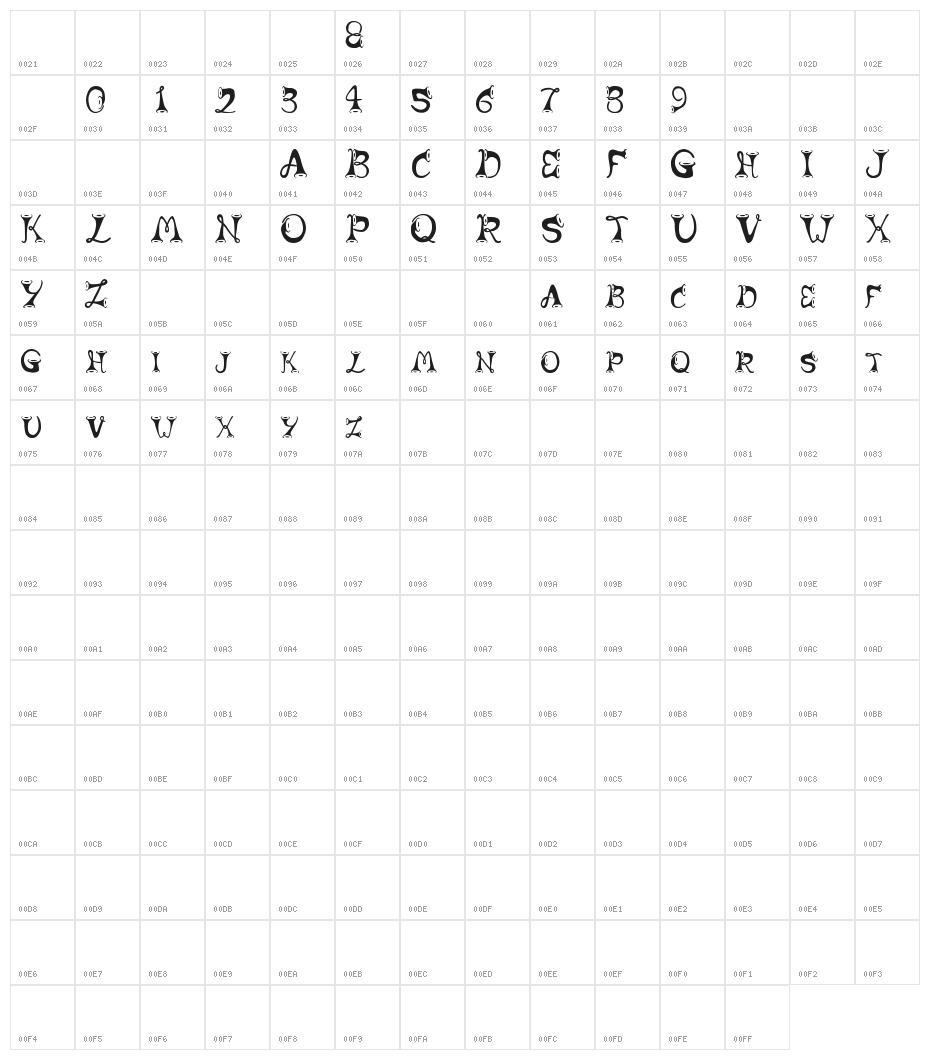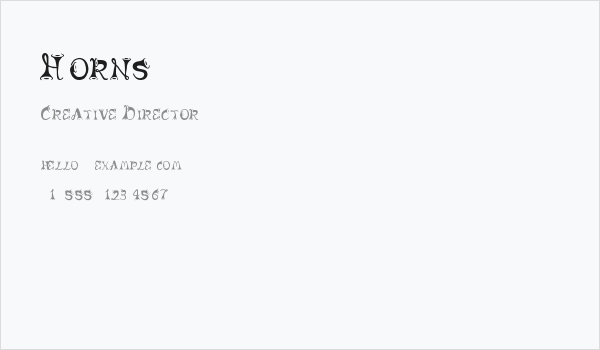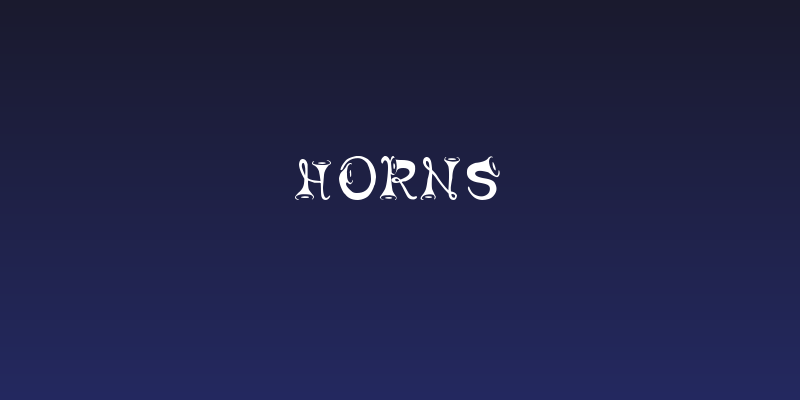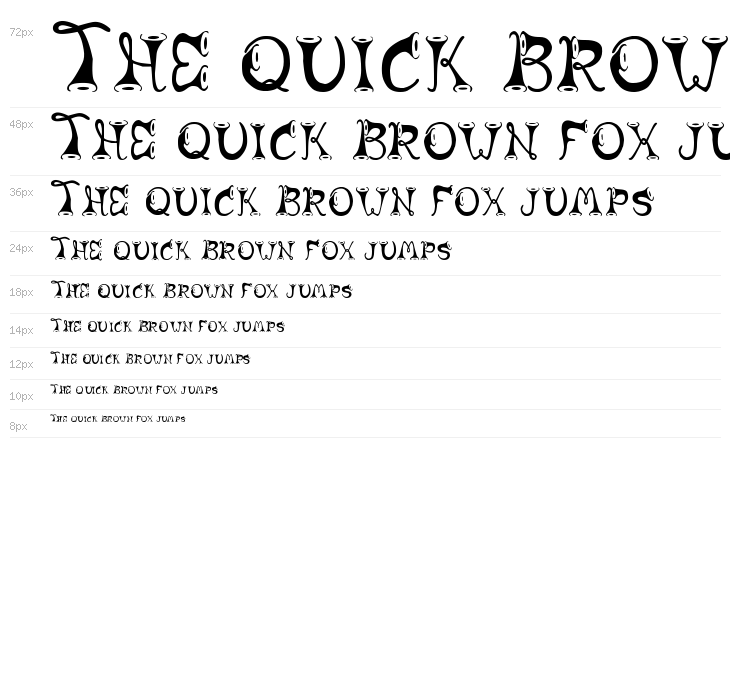
Horns Font
Horns Description
This font features a playful and whimsical design, characterized by its unique horn-like extensions on each character. The letters are bold and have a decorative flair, making them stand out with a distinct personality. The font combines elements of both serif and decorative styles, with exaggerated curves and pointed tips that resemble horns. This creates a dynamic and eye-catching appearance, suitable for creative and fun projects. The numbers and special characters maintain the same playful aesthetic, ensuring consistency across all text elements.
Proposed ProjectsIdeal for children's book covers, playful branding, party invitations, and creative posters.